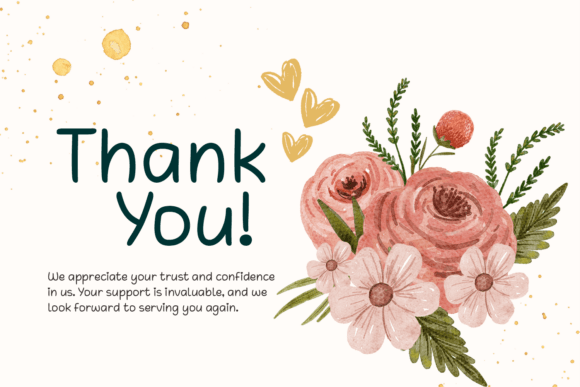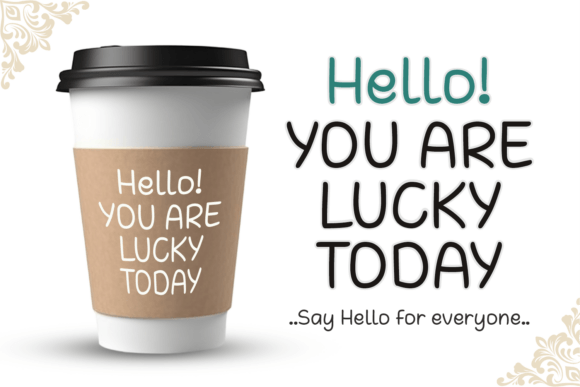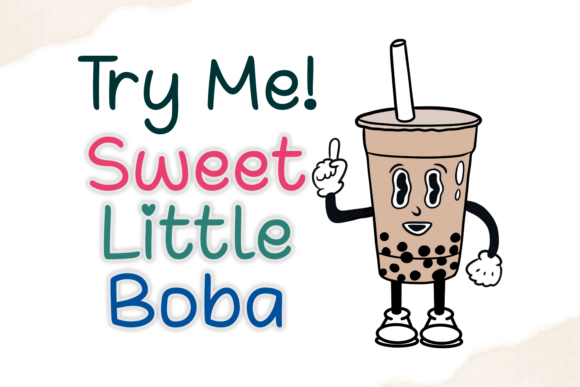
Boba Sugar Font: The Sweetest Addition to Your Design Collection
Are you on the hunt for a font that’s as sweet as it is stylish? Look no further than Boba Sugar Font, a charming handwritten font that’s sure to add a touch of joy and warmth to any creative project. With its playful, rounded strokes and sugary-sweet personality, Boba Sugar is the perfect choice for designers and crafters looking to create delightful invitations, cheerful branding, and whimsical designs.
The Perfect Blend of Playfulness and Sophistication
Boba Sugar Font boasts a casual, bubbly style that’s reminiscent of childhood treats and happy memories. Its unique blend of playfulness and sophistication makes it an excellent choice for a wide range of design projects, from wedding invitations and party decorations to brand logos and social media graphics. Whether you’re a seasoned designer or a DIY crafter, Boba Sugar Font is sure to inspire your creativity and add a dash of fun to your work.
Key Features of Boba Sugar Font
• Handwritten with love: Boba Sugar Font is a carefully crafted handwritten font that exudes warmth and personality.
• Playful and rounded: Its playful, rounded strokes give Boba Sugar Font a soft and approachable feel that’s perfect for designs that require a touch of whimsy.
• Sugary-sweet personality: Boba Sugar Font has a unique personality that’s sure to make your designs stand out from the crowd.
• Casual and cheerful: This font is perfect for creating delightful invitations, cheerful branding, and whimsical designs that require a carefree vibe.
Use Cases for Boba Sugar Font
Boba Sugar Font is an incredibly versatile font that can be used in a wide range of design projects, including:
• Wedding invitations and party decorations: Add a touch of sweetness and whimsy to your wedding invitations, party decorations, and other celebratory designs.
• Brand logos and social media graphics: Use Boba Sugar Font to create cheerful brand logos, social media graphics, and other marketing materials that require a playful touch.
• DIY crafts and scrapbooking: Boba Sugar Font is perfect for DIY crafters and scrapbookers who want to add a personal touch to their projects.
• Digital art and illustrations: This font is also great for digital artists and illustrators who want to add a touch of sweetness to their artwork.
Why Choose Boba Sugar Font?
With so many fonts to choose from, why should you choose Boba Sugar Font? Here are just a few reasons why this font stands out from the crowd:
• Unique personality: Boba Sugar Font has a unique personality that’s sure to make your designs stand out from the crowd.
• High-quality design: This font is carefully crafted to ensure that it’s both stylish and legible.
• Easily customizable: Boba Sugar Font is easy to customize, making it perfect for designers who want to experiment with different styles and effects.
In conclusion, Boba Sugar Font is a charming handwritten font that’s sure to add a touch of joy and warmth to any creative project. With its playful, rounded strokes and sugary-sweet personality, this font is perfect for designers and crafters who want to create delightful invitations, cheerful branding, and whimsical designs. Whether you’re a seasoned designer or a DIY crafter, Boba Sugar Font is sure to inspire your creativity and add a dash of fun to your work.